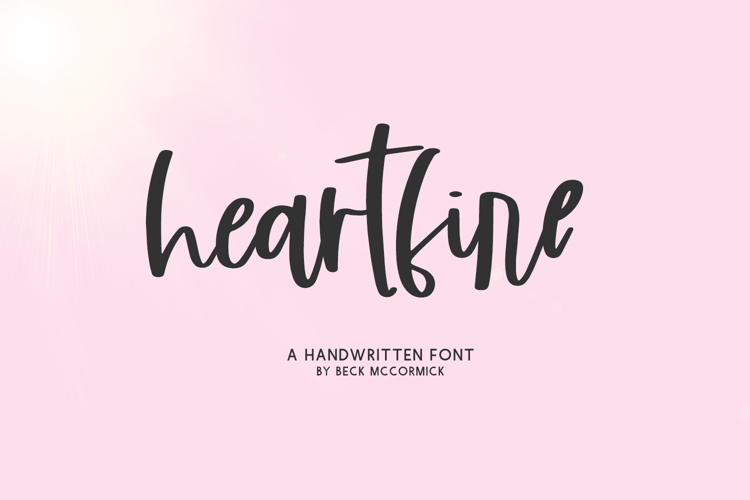
Introducing Heartfire, a modern calligraphy font with alternates.
Heartfire is best for:
- feminine, crafty projects with your Cricut or Silhouette machine, or your SVG design business
- farmhouse decor and crafts
- digital planners & apps like Goodnotes
- website design + website accents, blog design
- feminine graphic tee shirt design & other apparel
- 26 alternates